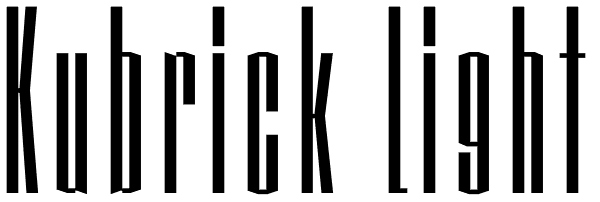
Kubrick
Kubrick is an experiment in extremes. The Light font is very tall and slender, the Black font is very massive, and Kubrick's slender counters push some of its glyphs to the edge of recognition. The thin counters and negative spaces also give text...